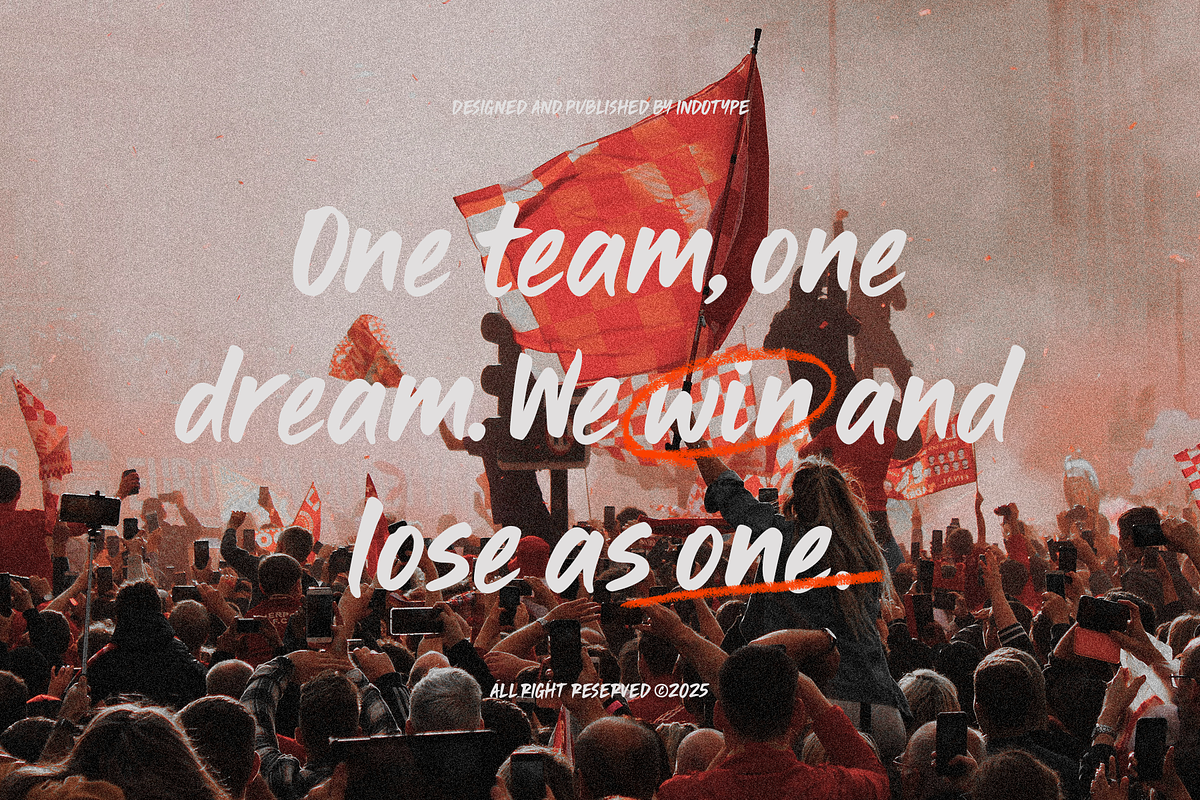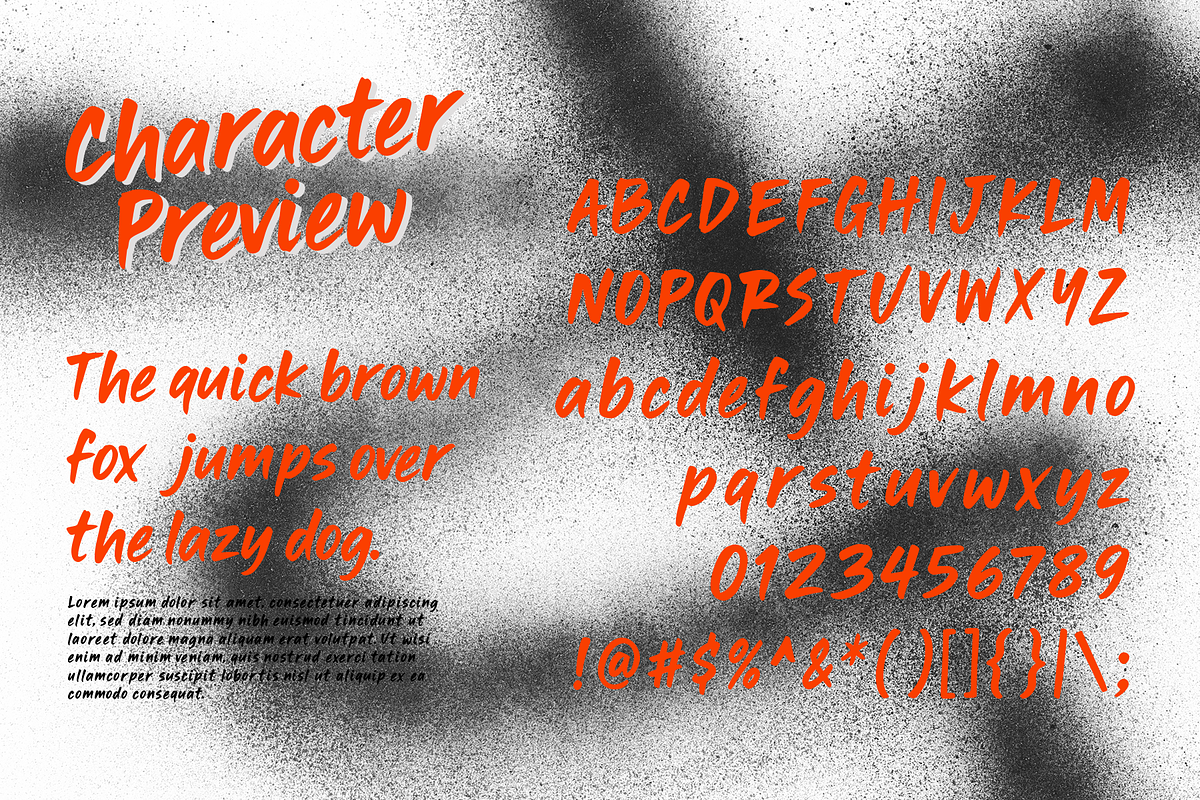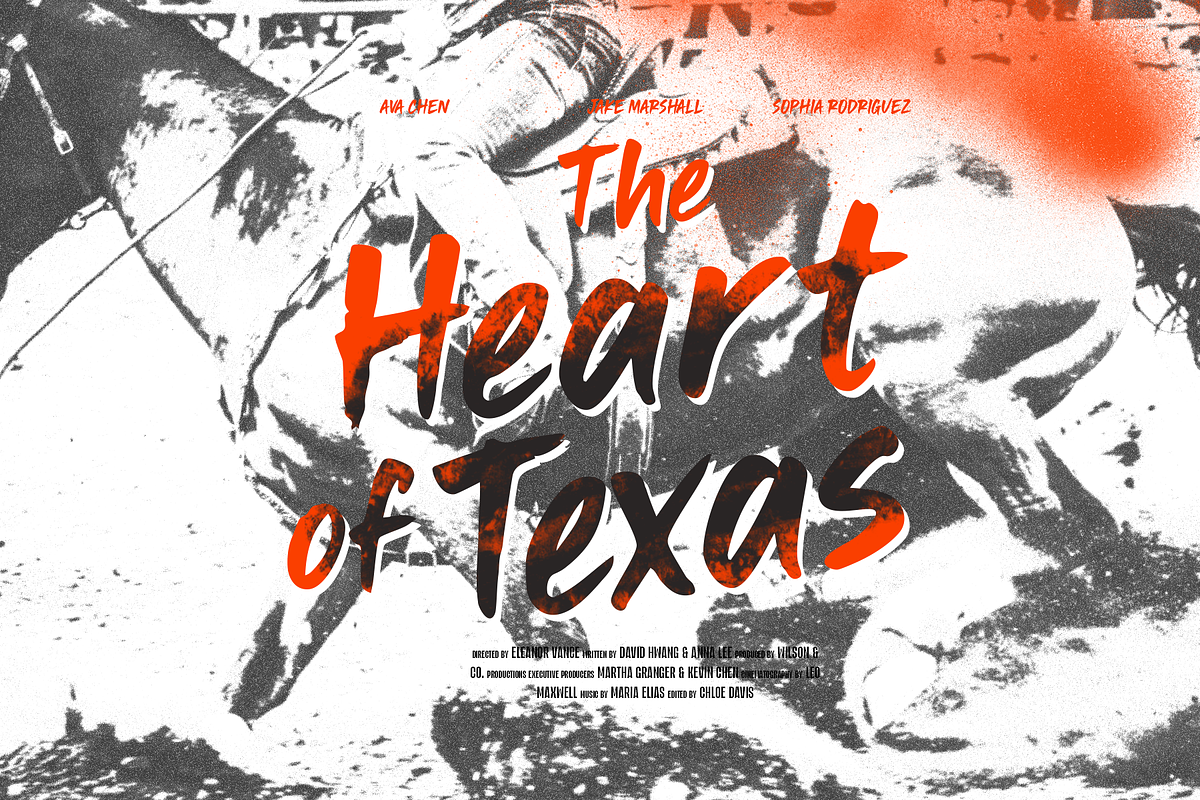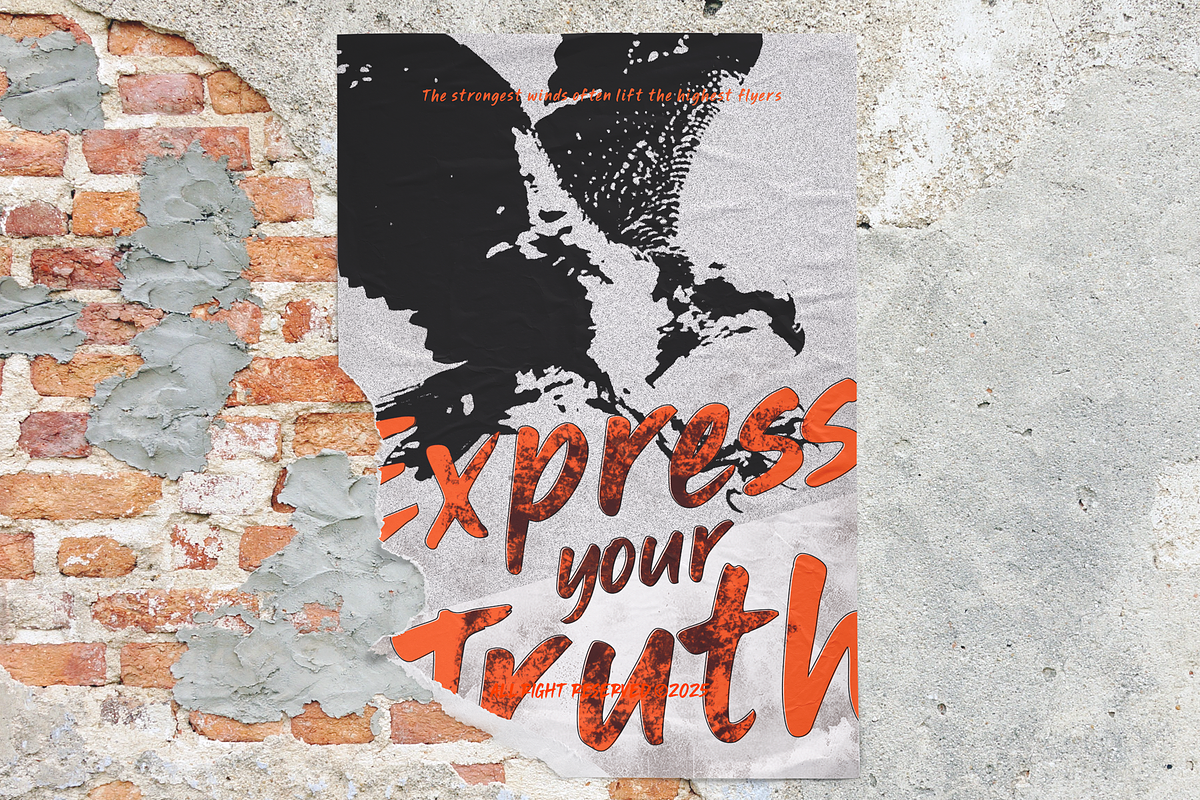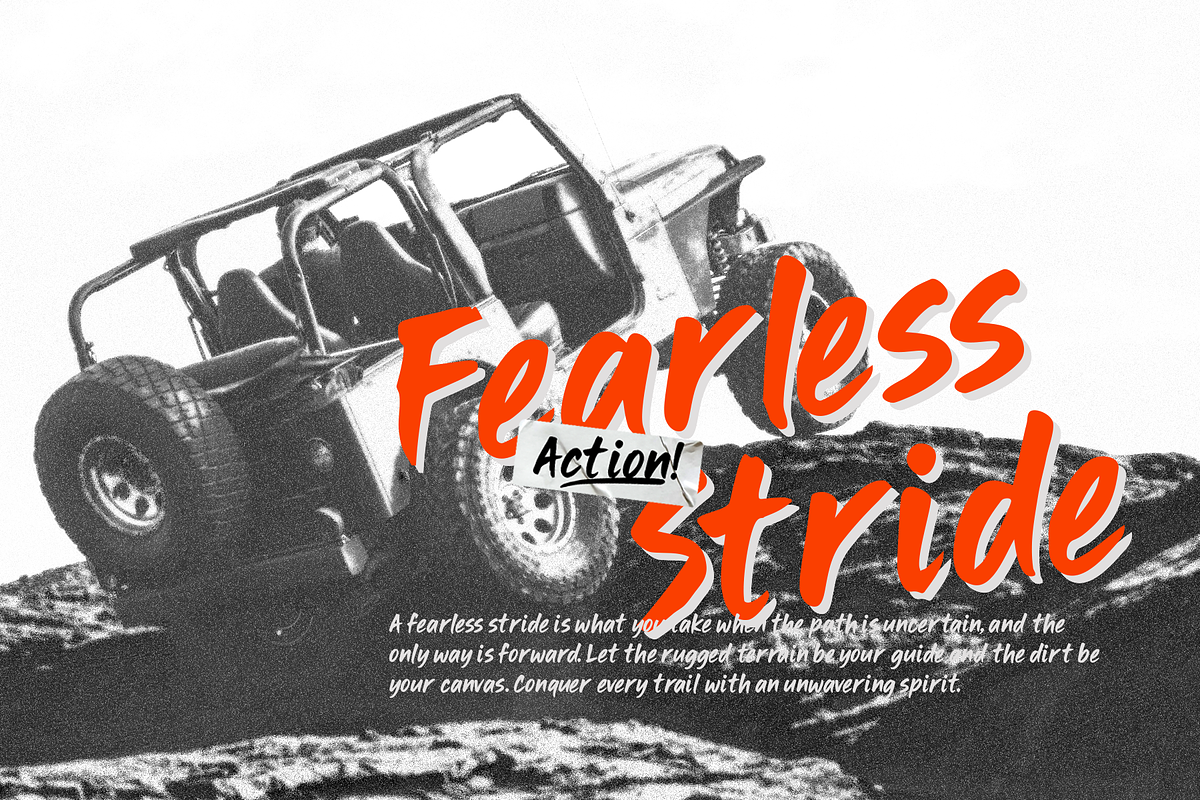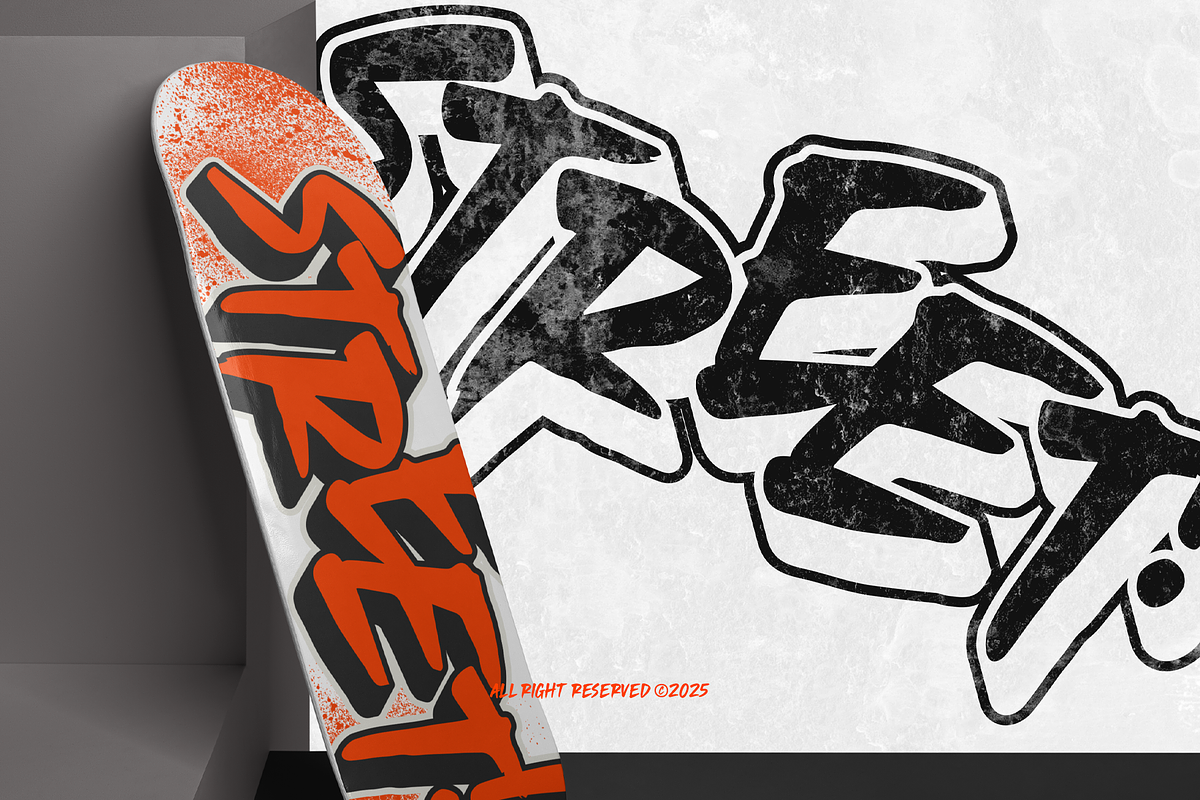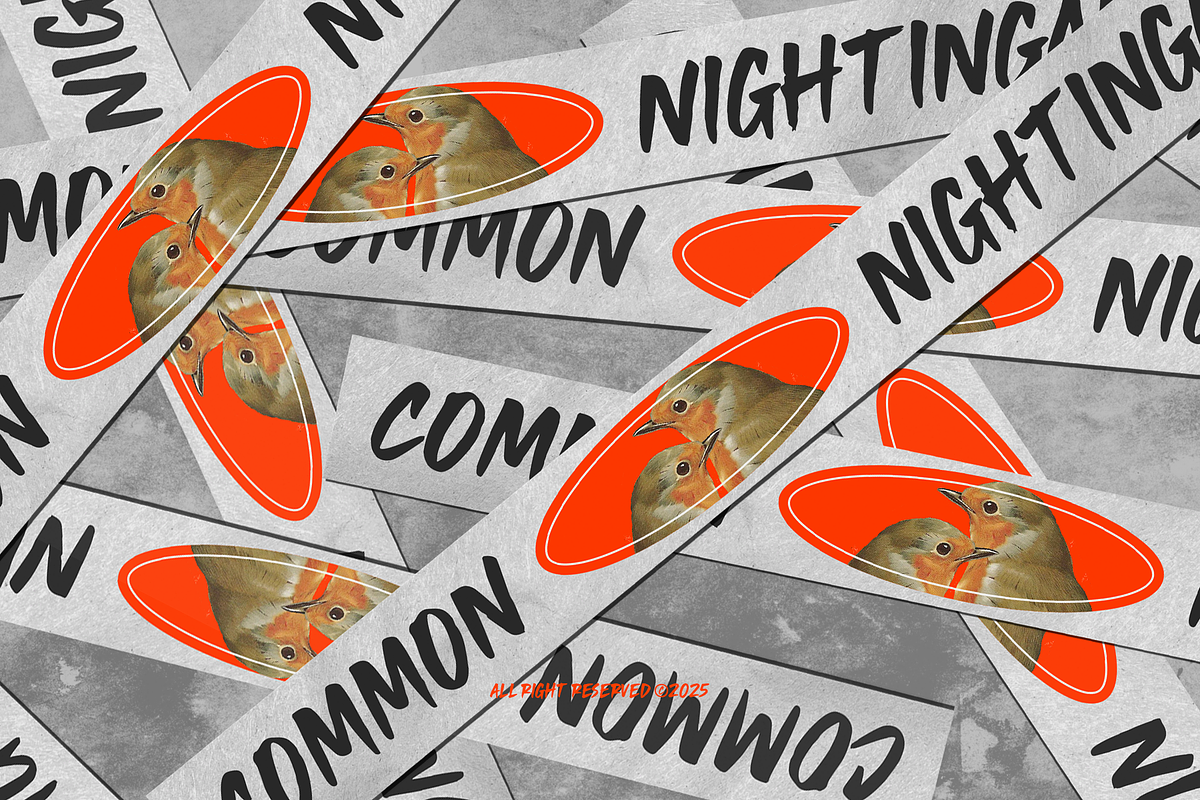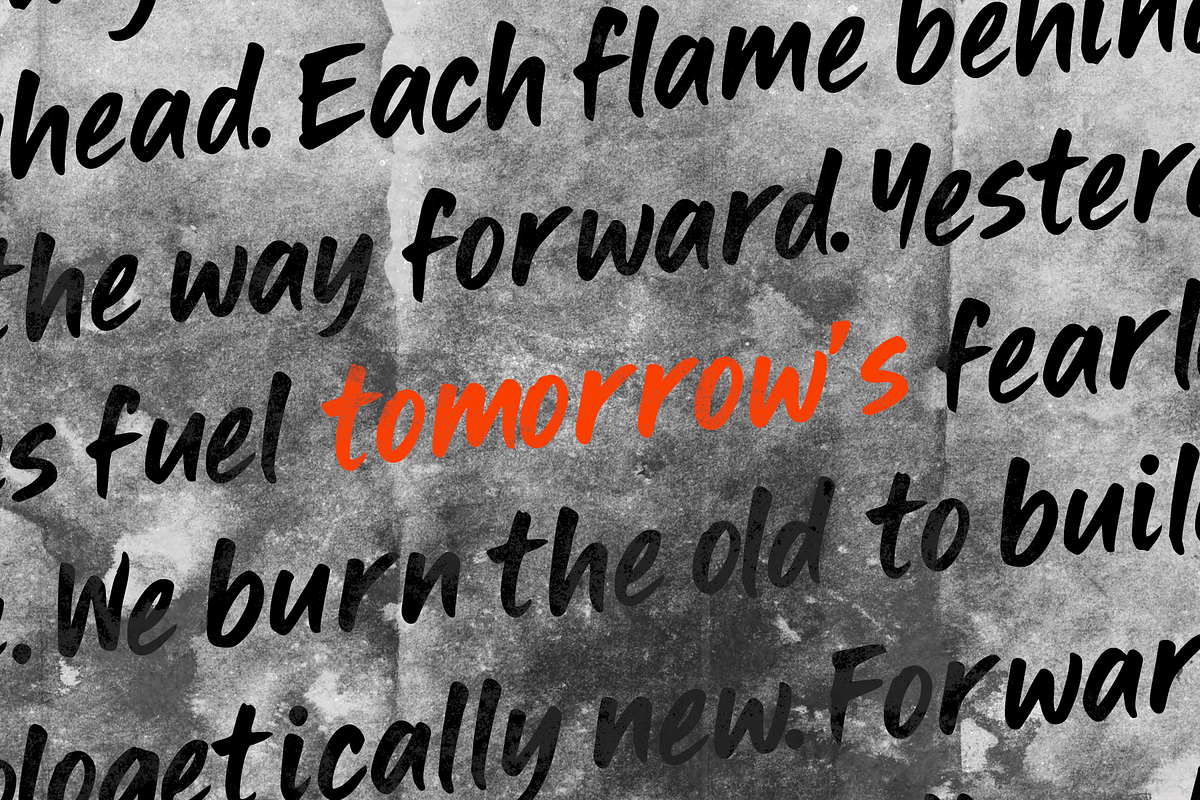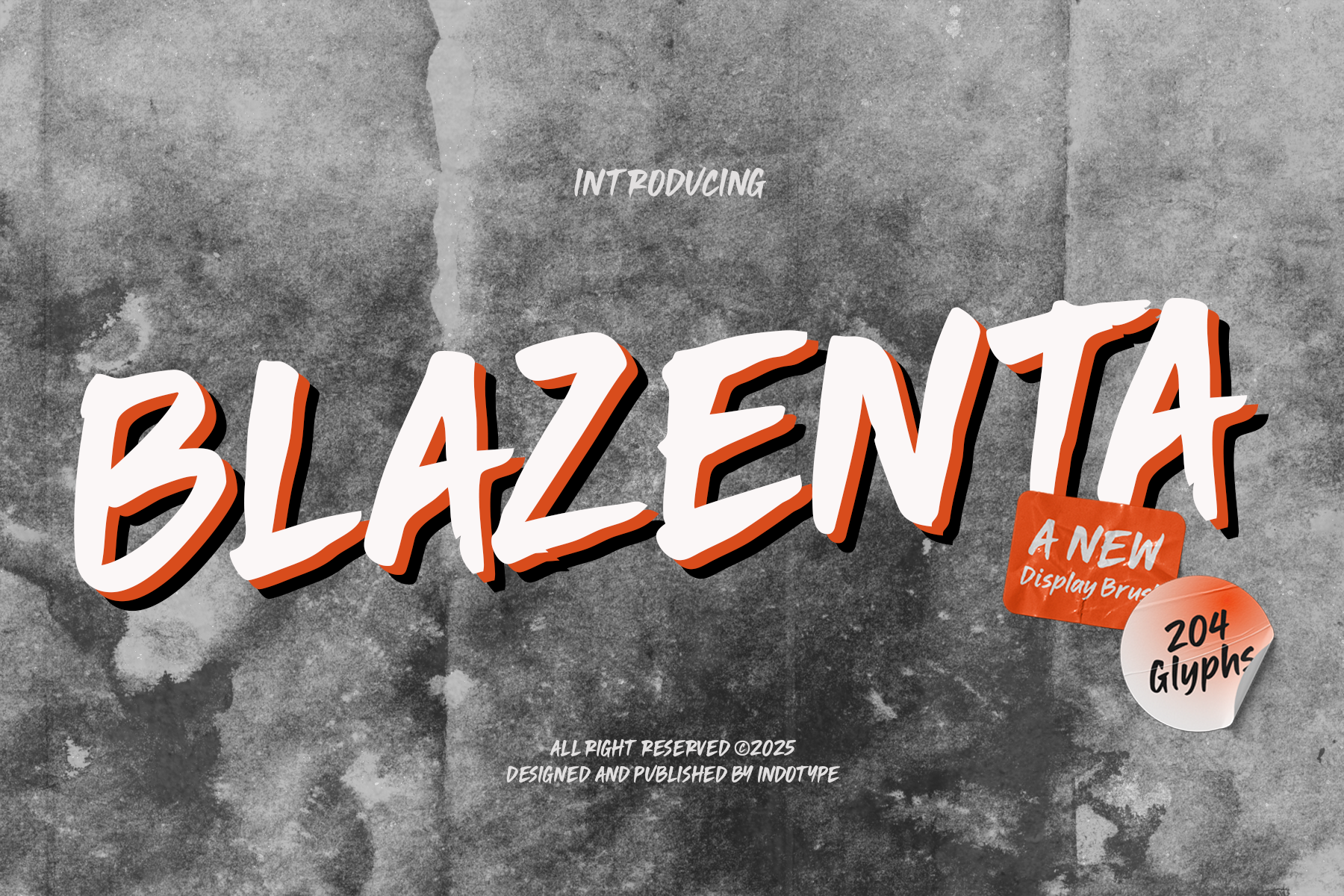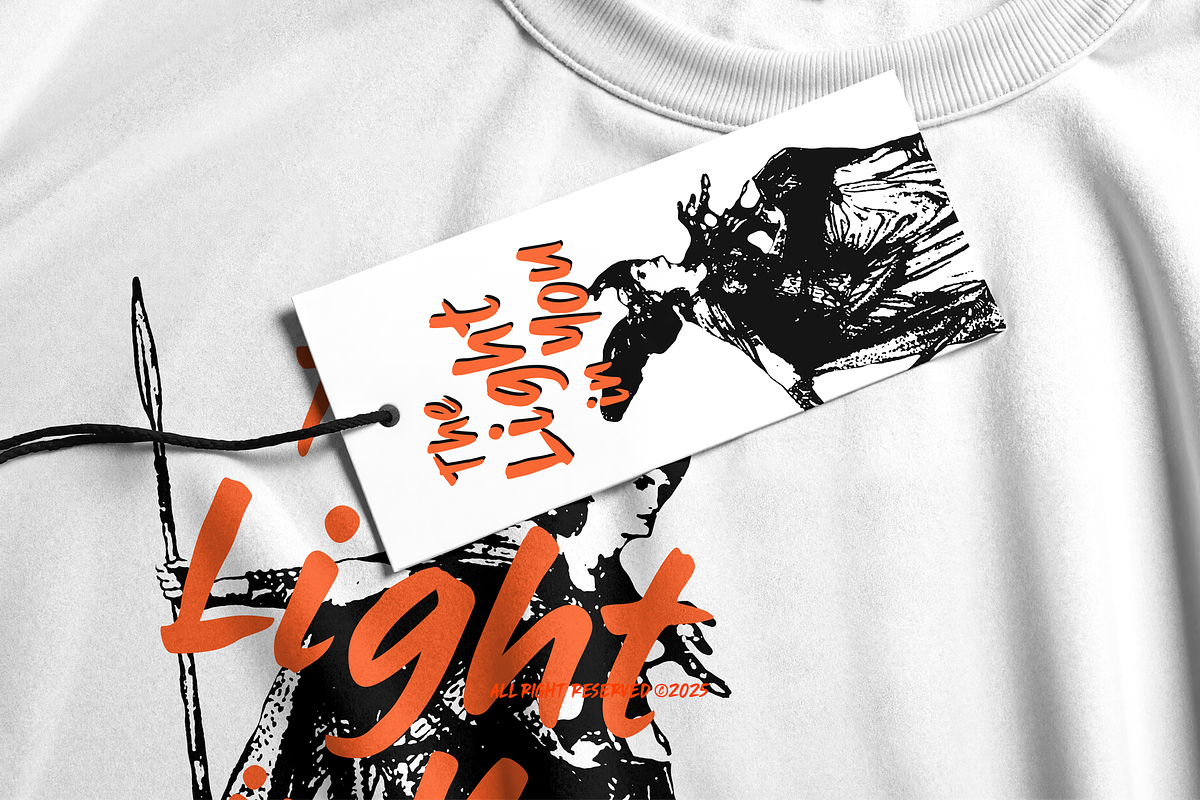
Blazenta - Display Brush Font
Blazenta is a bold display brush font that radiates raw energy and expressive character. With its hand-painted strokes, sharp edges, and striking contrast, Blazenta captures the authenticity of real brush lettering while keeping a modern, digital polish. Its bold and dynamic presence makes it an excellent choice for designs that need to stand out with confidence and attitude. This typeface is designed for logos, posters, merchandise, streetwear, album covers, sports branding, packaging, social media, and advertising campaigns. Blazenta’s brush textures add an urban, rebellious touch, perfect for projects that demand a gritty yet stylish aesthetic. with multilingual support, Blazenta is flexible for both English and international projects. Published by Indotype in 2025, Blazenta isn’t just a font — it’s a bold statement designed to ignite creativity and deliver maximum impact.